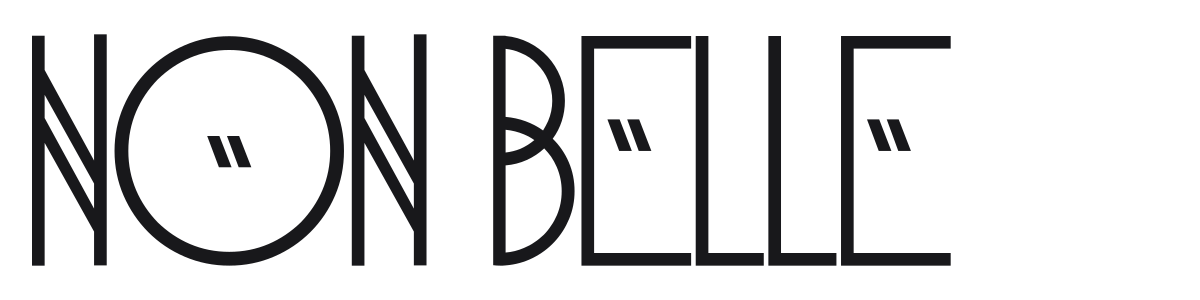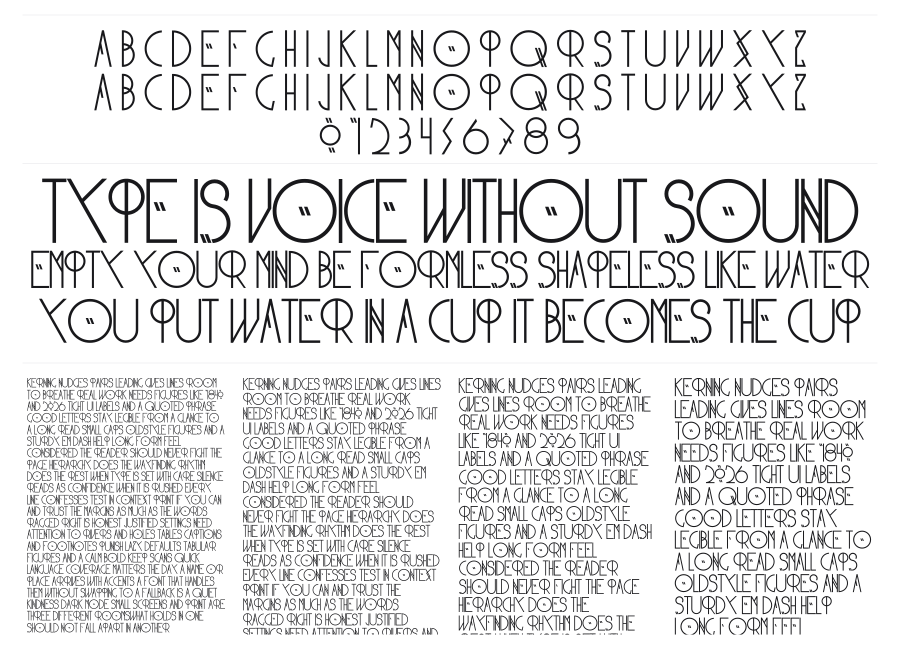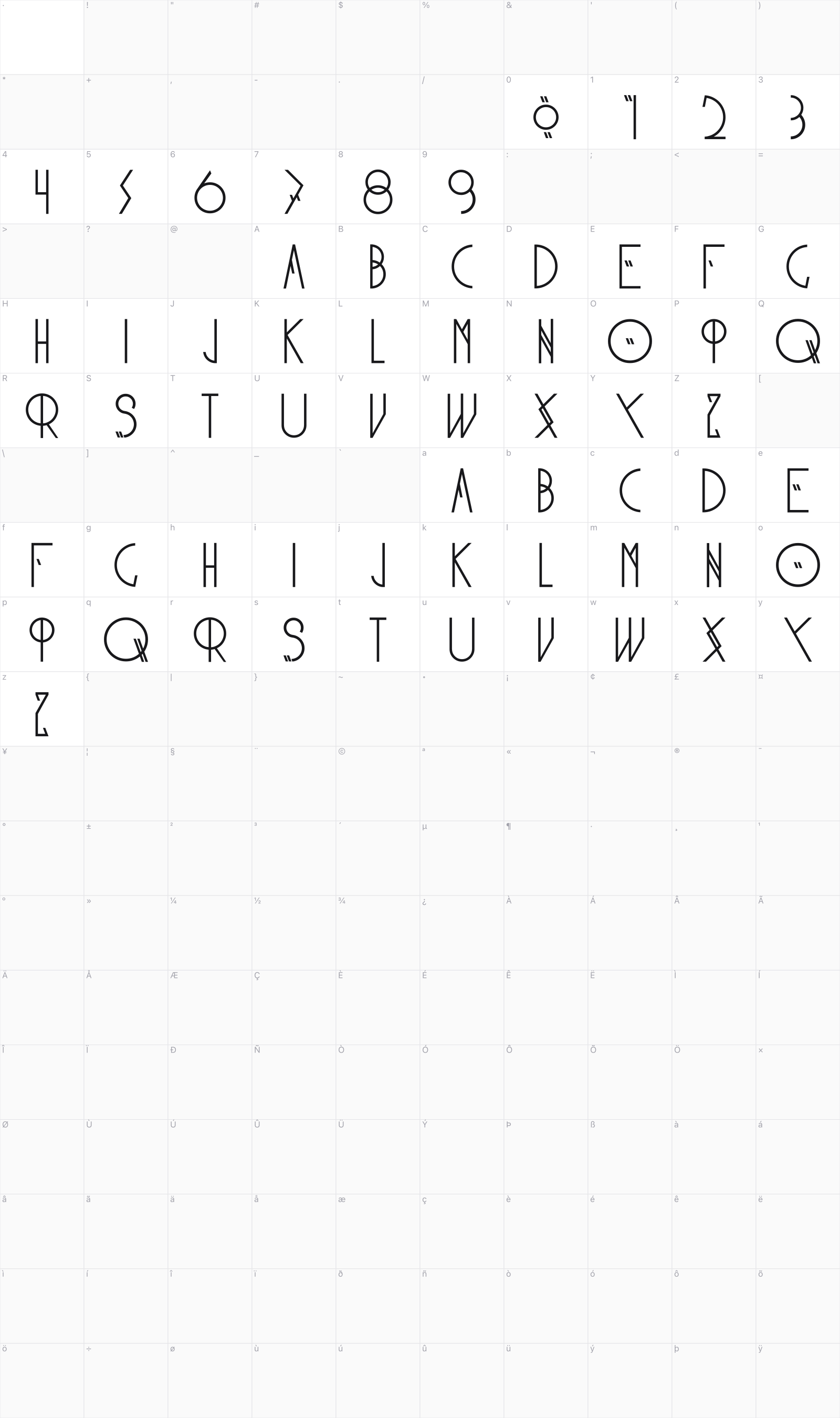
Non Belle
Non Belle is a geometric Art Deco display face built from circles and straight lines with near-monoweight strokes. Its tall, condensed proportions and architectural rigidity give it a distinctly 1920s sensibility. Strong at large sizes in fashion, entertainment, and luxury branding.